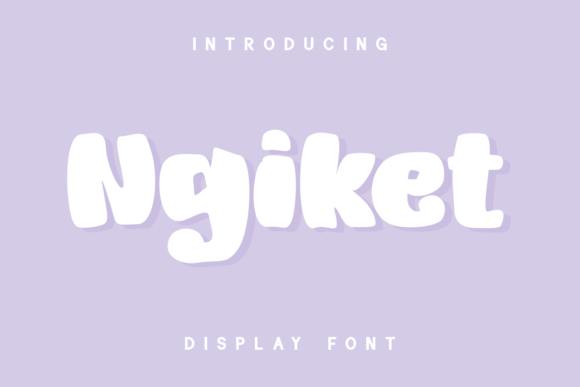
Ngiket Font
Come and explore the enchanting world of Ngiket Font, a captivating display font that will ignite your creativity and leave a lasting impression on your audience. Ngiket is a chunky and modern font that exudes playfulness and charm, making it the perfect choice for adding a touch of whimsy to your designs. It's like a cheerful dance of letters, ready to bring life to your projects.
Crafted with meticulous attention to detail by the talented GFRcreative, Ngiket is a versatile font that shines in a myriad of applications. Unleash your imagination in creating stunning posters that demand attention, eye-catching covers that entice readers, and captivating headers that command authority. Ngiket effortlessly enhances books, magazines, and branding materials, adding a touch of playful elegance that sets your work apart.
But Ngiket's versatility knows no bounds. It's the perfect font for adding a splash of personality to t-shirts, creating trendy fashion designs, and crafting unique invitations that will leave a lasting impression. Each letter in the Ngiket font is a work of art, carefully designed to evoke a sense of joy and wonder. By incorporating this remarkable font into your creative ideas, you're not just adding text - you're adding a touch of magic that will make your creations truly unforgettable.
Picture this: your designs transformed into masterpieces, adorned with the charming and unforgettable Ngiket font. Your posters will become captivating works of art, your covers will entice readers to delve into your stories, and your branding materials will exude a magnetic charm that draws customers in. With Ngiket, you're not just downloading a font - you're investing in a powerful tool that will elevate your creativity and leave a lasting impression on the world.
So, dive into the world of Ngiket Font and prepare to be amazed by its enchanting beauty and undeniable versatility. Let your creativity soar and experience the joy of bringing your ideas to life with this playful and captivating font. With Ngiket, the possibilities are endless, and your designs will shine with a charm and personality that will captivate hearts and minds.